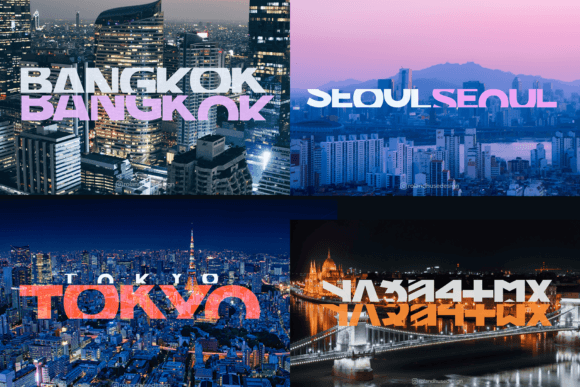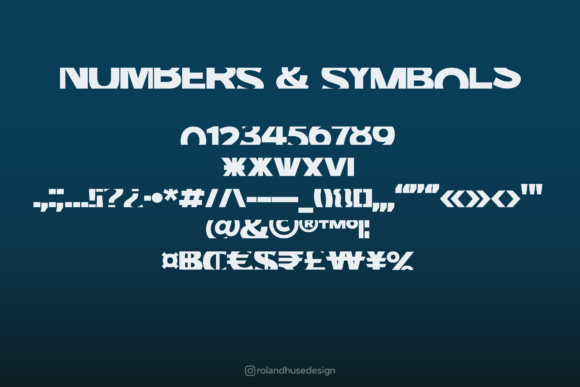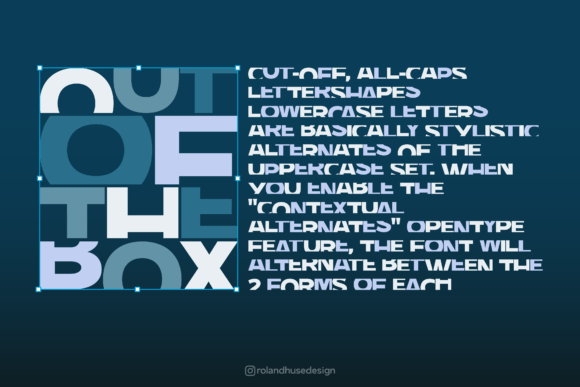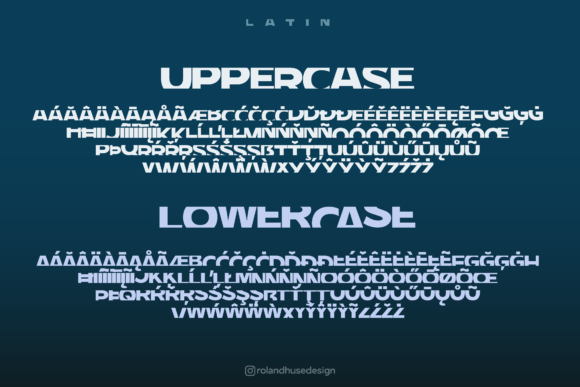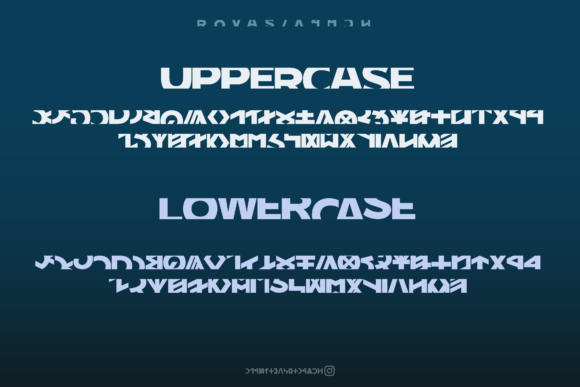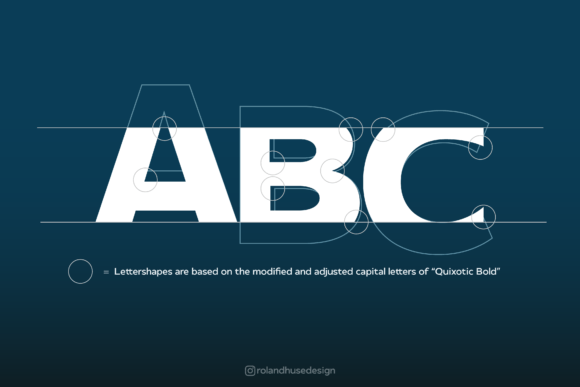
Introducing Big City Vibes Font: The Ultimate Display Font for Urban Designs
Are you a designer or crafter looking for a unique and stylish font to add a touch of urban flair to your posters, textures, and patterns? Look no further than Big City Vibes Font, a cut-off display font that’s perfect for making a statement. In this article, we’ll dive into the features and benefits of Big City Vibes, and explore how it can elevate your designs to the next level.
The Inspiration Behind Big City Vibes
Big City Vibes Font is based on the capital letters of “Quixotic Sans Bold”, a popular sans-serif font known for its clean and modern aesthetic. However, Big City Vibes takes this classic font to a new level by introducing sliced and adjusted letter shapes that give it a bold, edgy feel. The result is a font that’s perfect for creating eye-catching posters, textures, and patterns that demand attention.
What Sets Big City Vibes Apart
So, what makes Big City Vibes Font so unique? For starters, it’s a cut-off display font, which means it’s designed to be used in large sizes where its bold, chunky letters can really shine. But what really sets it apart is its innovative approach to letter design. In place of traditional lowercase letters, Big City Vibes features different cut and shifted capitals, which creates a fascinating variety in word shapes and negative space.
This clever design trick allows you to create visually interesting and dynamic text arrangements that are sure to capture the viewer’s eye. Whether you’re designing a poster, a flyer, or a social media graphic, Big City Vibes Font gives you the tools you need to create something truly special.
Key Features of Big City Vibes Font
- Cut-off display font: Big City Vibes is designed to be used in large sizes, making it perfect for posters, headlines, and other display text.
- Unique letter design: The font features sliced and adjusted letter shapes based on the capital letters of “Quixotic Sans Bold”.
- Variety in word shapes and negative space: The use of different cut and shifted capitals in place of lowercase letters creates a fascinating variety in word shapes and negative space.
- Perfect for texture and pattern-like designs: Big City Vibes Font is ideal for creating textures and patterns that add depth and interest to your designs.
How to Use Big City Vibes Font in Your Designs
So, how can you use Big City Vibes Font in your designs? Here are a few ideas to get you started:
- Posters and flyers: Use Big City Vibes Font to create bold, eye-catching headlines that grab the viewer’s attention.
- Textures and patterns: Experiment with Big City Vibes Font to create unique textures and patterns that add depth and interest to your designs.
- Social media graphics: Use Big City Vibes Font to create visually interesting and dynamic social media graphics that stand out from the crowd.
Tips and Tricks for Getting the Most Out of Big City Vibes
Here are a few tips and tricks for getting the most out of Big City Vibes Font:
- Experiment with different sizes and colors: Big City Vibes Font looks great in large sizes, but it can also be used in smaller sizes to create interesting textures and patterns.
- Mix and match with other fonts: Big City Vibes Font pairs well with a variety of other fonts, so don’t be afraid to experiment with different combinations.
- Use it to create contrast: Big City Vibes Font is perfect for creating contrast in your designs, so use it to draw attention to key messages or elements.
In conclusion, Big City Vibes Font is a unique and stylish cut-off display font that’s perfect for designers and crafters looking to add a touch of urban flair to their designs. With its innovative approach to letter design and bold, edgy aesthetic, Big City Vibes Font is sure to elevate your designs to the next level. So why wait? Download Big City Vibes Font today and start creating stunning posters, textures, and patterns that demand attention!